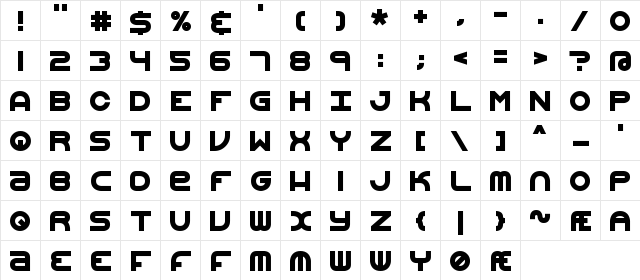
Vertigo Upright 2 BRK Normal
| Foundry | ƎIGMA FONTS |
| Designer | ƎIGMA FONTS - Brian Kent |
Design Context for Vertigo Upright 2 BRK Typeface
Vertigo Upright 2 BRK offers clean, dependable letterforms without strong stylistic allegiance, making it a practical choice for designers who need flexibility.